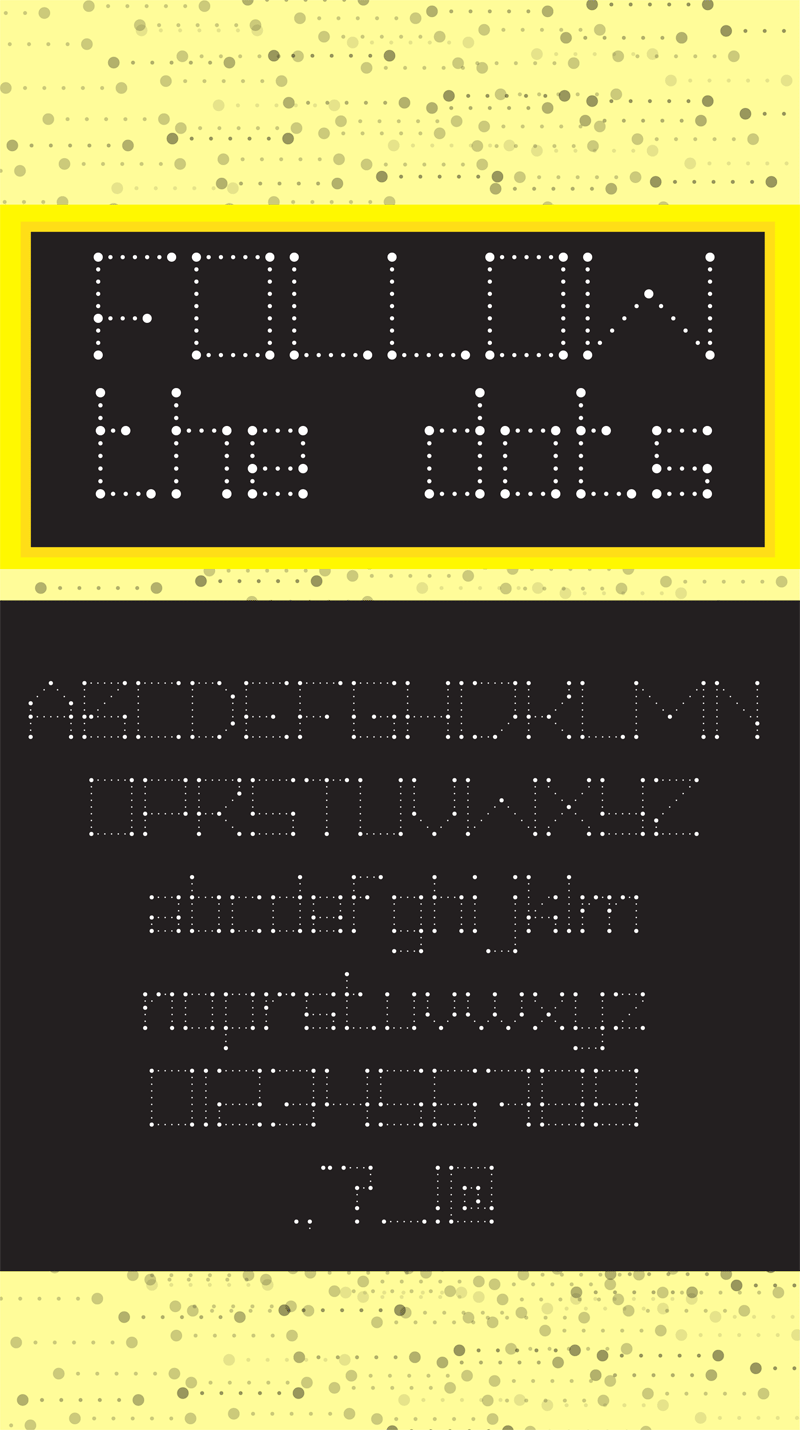
Preview and download Hei dots follow me! Font. Created by earl ciel in Techno LCD styles with Donationware license.
It's a fun font to play with kids! Just follow where the dots go^^ Enjoy for free personal use only Contact me/ donate via paypal : pauline.yosephine@gmail.com Thankyou!^^ |